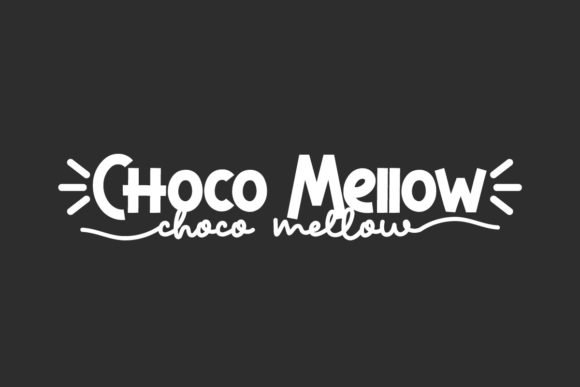
The Sweetest Typography: Discovering Choco Mellow Font
Who hasn’t felt that rush of excitement when brainstorming a new project? The blank canvas, the endless possibilities, the thrill of bringing an idea to life. For many creatives, this feeling is the spark that ignites a passion for design. And what better way to fuel that passion than with the perfect font?
Enter the Choco Mellow Font, a delightful duo of typography that’s sure to add a touch of whimsy and charm to your crafts. This beautifully crafted font is designed to be used alone or in conjunction with its partner, creating a harmonious balance that’s simply irresistible. With its PUA encoding, you’ll have access to all the glyphs and swashes you need to make your designs truly special.
Whether you’re a seasoned designer or just starting out, the Choco Mellow Font is an invaluable addition to your toolkit. Its versatility and charm make it the perfect choice for a wide range of projects, from greeting cards to web design. So why settle for a generic font when you can have a sweet and sophisticated Choco Mellow Font to elevate your creations?
Key Features of Choco Mellow Font
- Font Family: Choco Mellow Font is a sans-serif font family with a unique, mellow design.
- Character Count: The font family includes a wide range of characters, including uppercase and lowercase letters, numbers, and punctuation marks.
- Unique Characteristics: The font’s unique design features a subtle, rounded shape and a mellow texture, making it ideal for use in branding, packaging, and digital design projects.
Choco Mellow Font Review
Overall, I’m quite impressed with the Choco Mellow Font. It’s a modern, playful font that’s perfect for adding a touch of whimsy to your designs. Here are some things that work well:
- ✨ Unique character: The Choco Mellow Font has a distinct, rounded feel that sets it apart from more traditional fonts.
- ✨ Versatile: It’s suitable for a wide range of applications, from branding and advertising to editorial and digital media.
- ✨ High-quality glyphs: The font’s characters are well-designed and consistently rendered, making it a pleasure to work with.
However, I do have some reservations:
- ⚠️ Limited legibility at small sizes: While the font looks great at larger sizes, it can become difficult to read at smaller sizes, which may limit its use in certain contexts.
- ⚠️ Not suitable for formal or serious applications: The Choco Mellow Font’s playful nature may not be the best fit for more formal or serious projects, such as business reports or academic papers.
Overall, I think the Choco Mellow Font is a solid choice for designers looking to add some personality to their projects. With its unique character and versatility, it’s sure to be a hit with clients and audiences alike. Just be aware of its limitations and use it judiciously.
The Choco Mellow Font is perfect for:
- Creativity and art projects.
- Personalized gifts and cards.
Alternatives to Choco Mellow Font
Oswald
Oswald is a sans-serif font that is great for headings and titles. It has a strong, modern feel that works well for digital products and websites. Oswald is a good alternative to Choco Mellow Font when you need a bold, sans-serif font for headings.
Comparison: Oswald is more modern and sans-serif, whereas Choco Mellow Font is more script-like and has a vintage feel.
Great Vibes is a script font that has a similar feel to Choco Mellow Font. It’s great for creating a fun, casual vibe in your design. Great Vibes is a good alternative to Choco Mellow Font when you need a script font that’s not too formal.